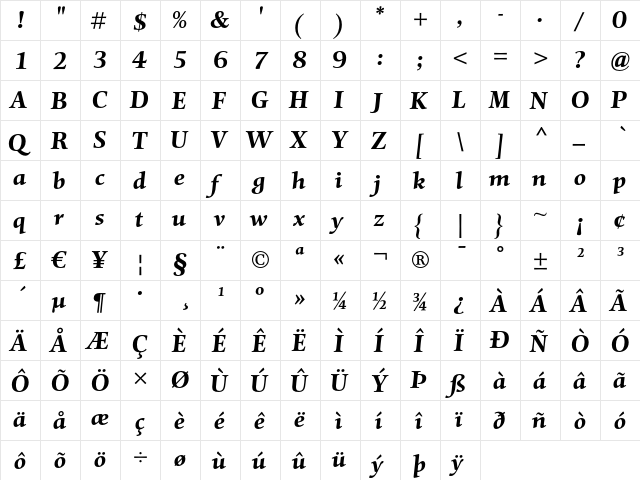
Mentor Bold Italic
Design Context for Mentor Typeface
Mentor takes a measured approach to typography — its balanced proportions and neutral character make it a reliable workhorse for both digital and print work. The dynamic lean of this cut emphasises speed and emphasis in any layout. The heavy weight commands attention and anchors typographic hierarchies.
Pro Tip: Try Mentor for annotation and caption copy alongside an upright companion — the contrast in angle creates a dynamic but ordered typographic system.